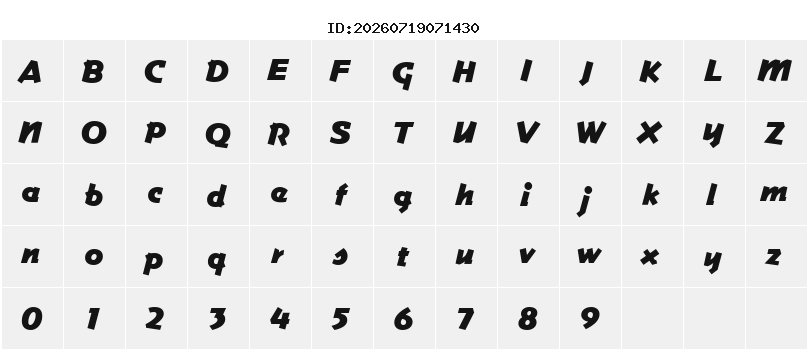
• Font Name: Commerce-Fat
• Full Font Name: Commerce-Fat
• Character Count: 230
• Manufacturer: Greg Thompson for The Font bureau, Inc
About Commerce-Fat.ttf
Commerce-Fat.ttf is a modern, elegant sans-serif font designed for ultimate readability and visual harmony. Perfect for branding, headlines, web design, and print materials.